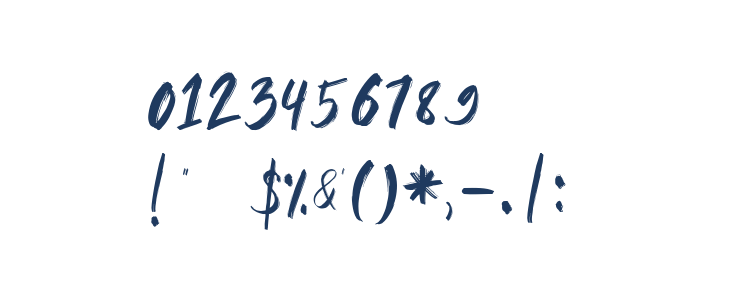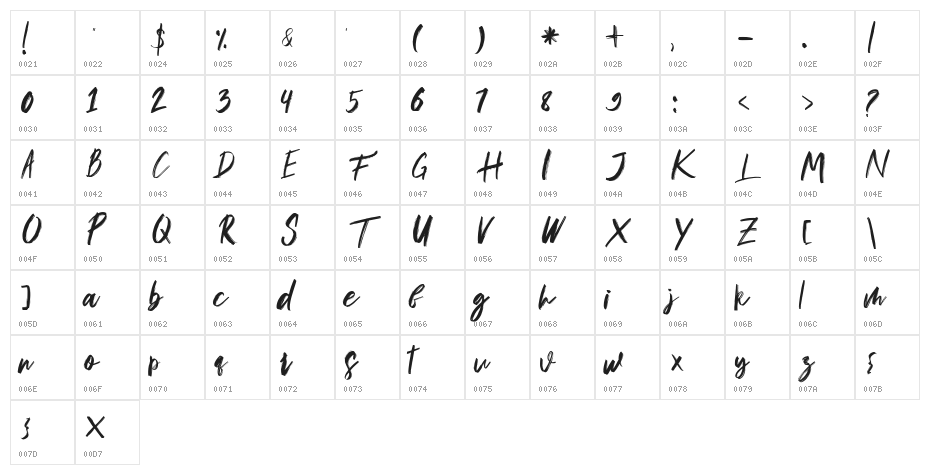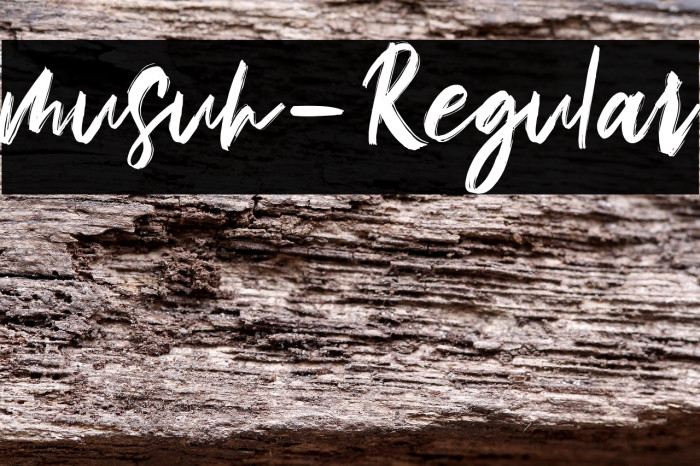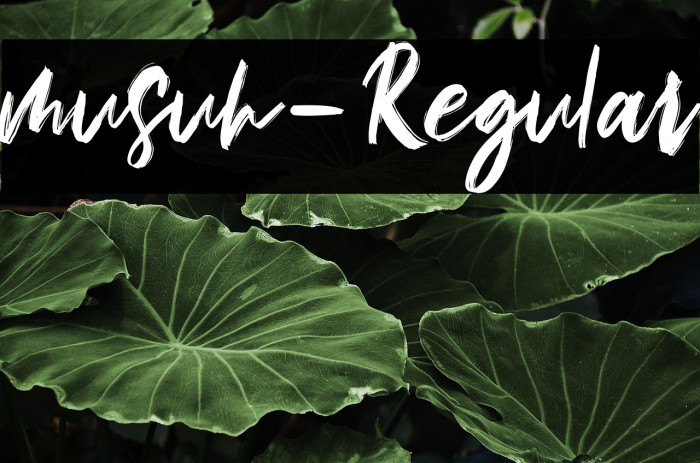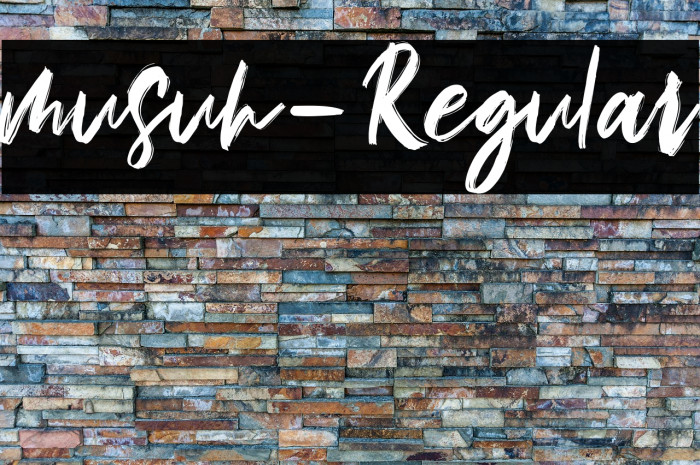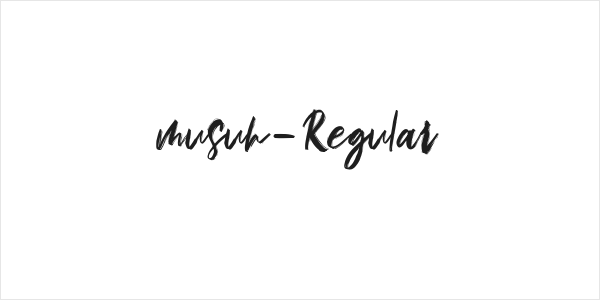
musuh-Regular Font
musuh-Regular Description
This font exhibits a bold, expressive style with a brush-like appearance. The strokes are dynamic and varied, giving each character a sense of movement and energy. The uppercase letters are tall and slightly narrow, while the lowercase letters maintain a consistent flow with a more pronounced slant. The numbers and special characters follow the same energetic style, making the font suitable for creative and artistic projects. The overall look is modern and edgy, with a touch of casual elegance.